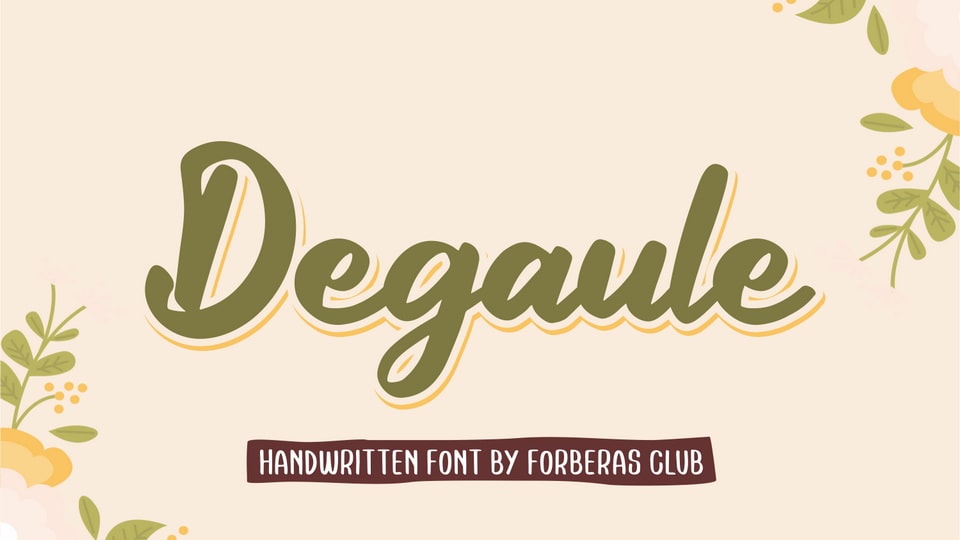
Download Degaule font, a lovely script typeface featuring charming, playful characters that seem to dance along the baseline. Degaule font is perfect for creating modern and chic designs such as logos, packaging, editorials and more.